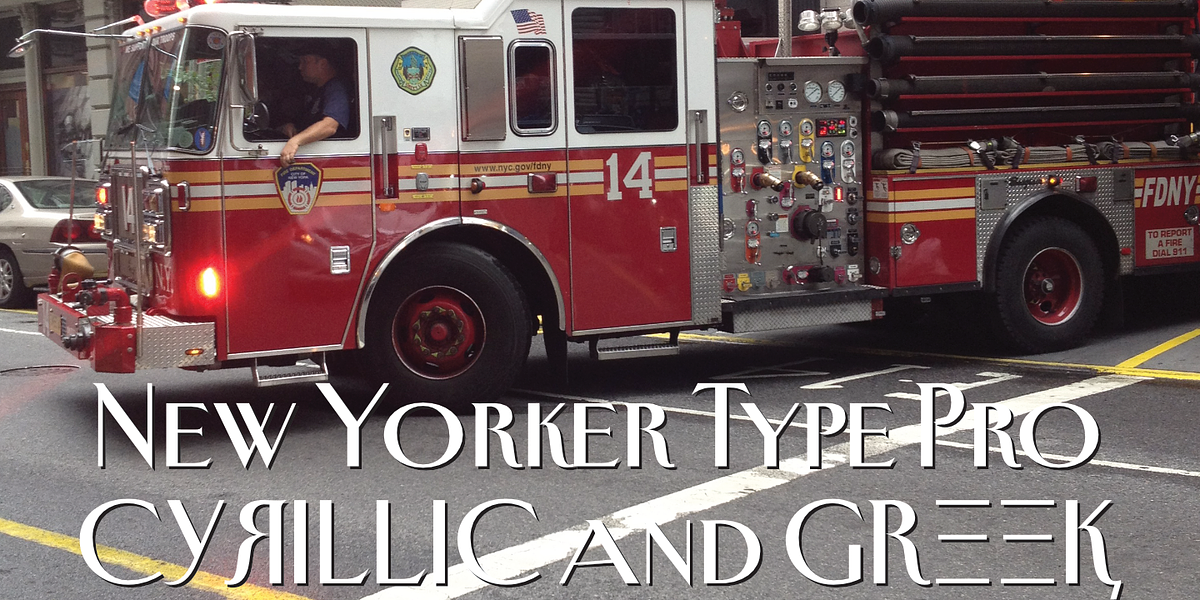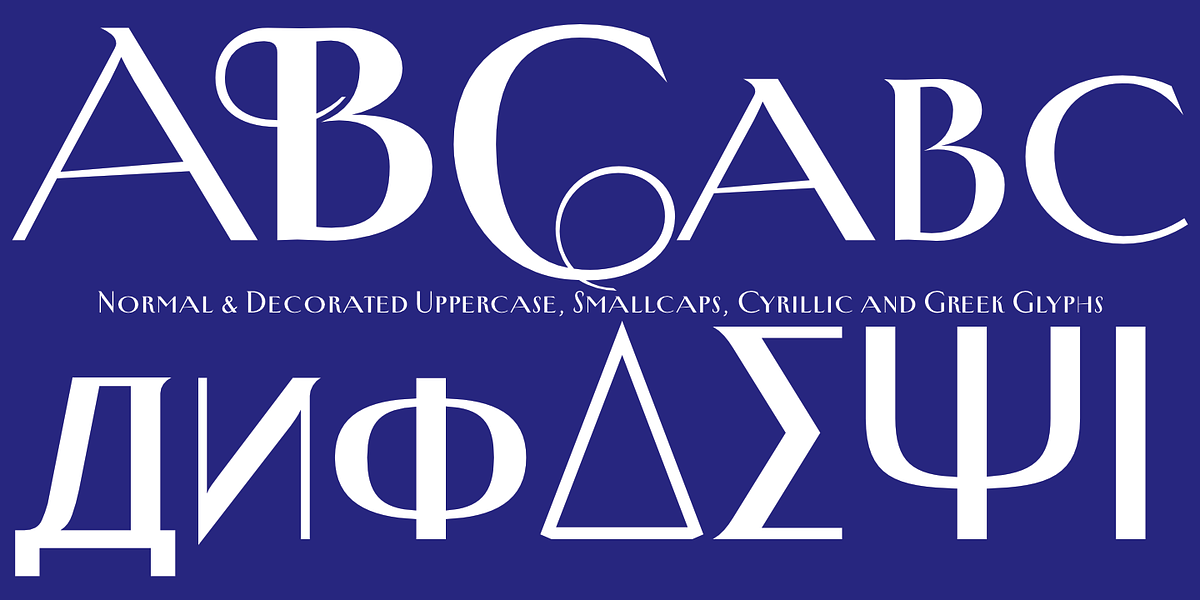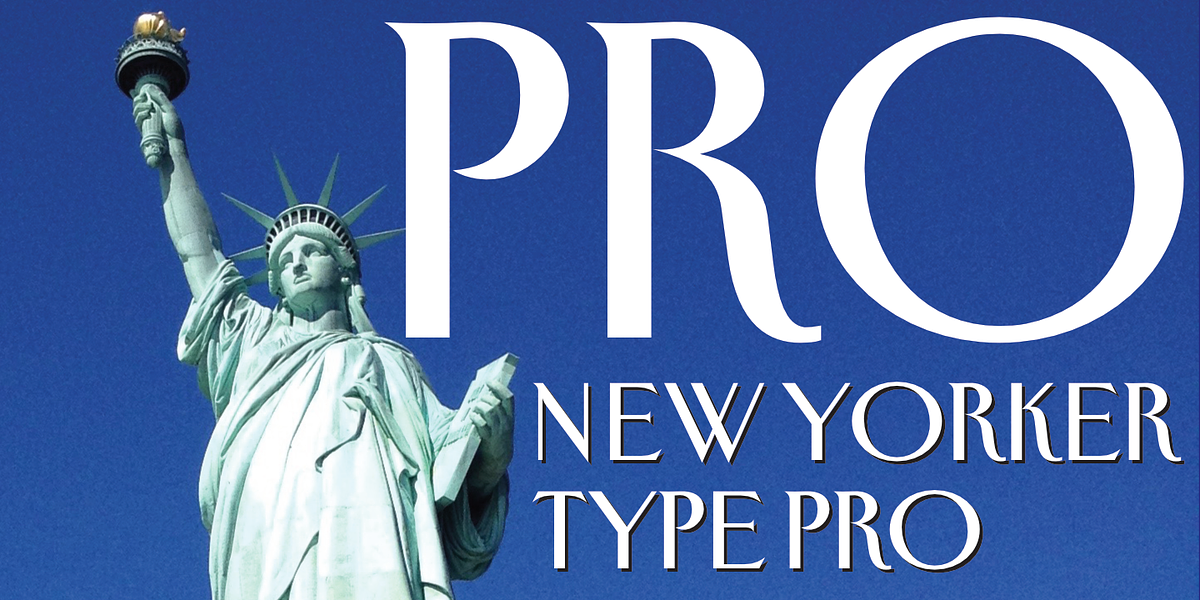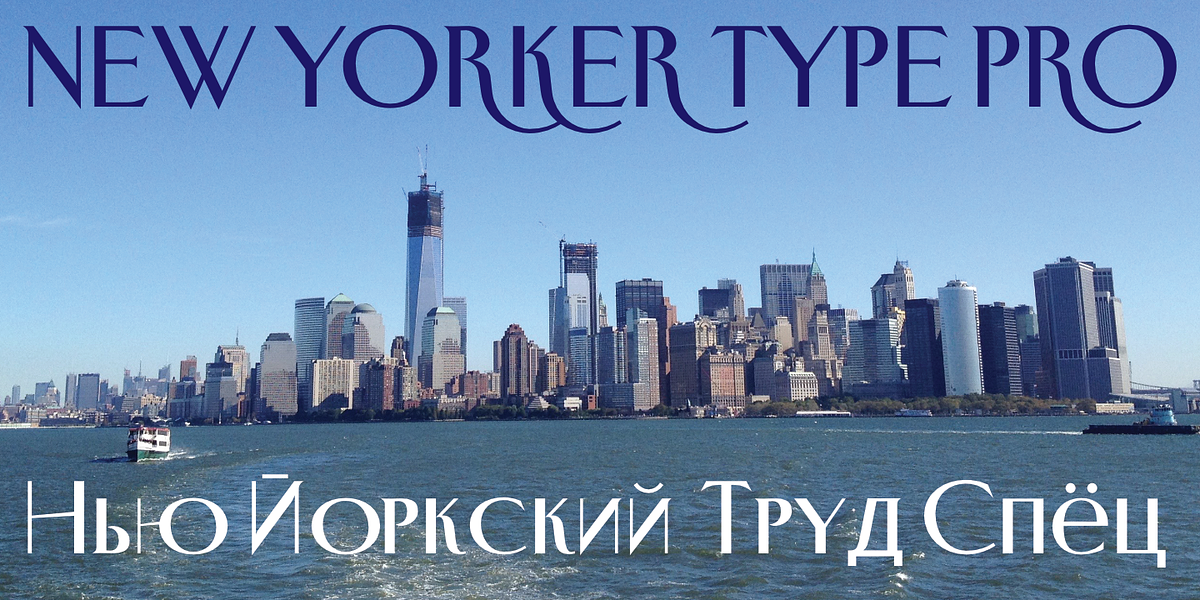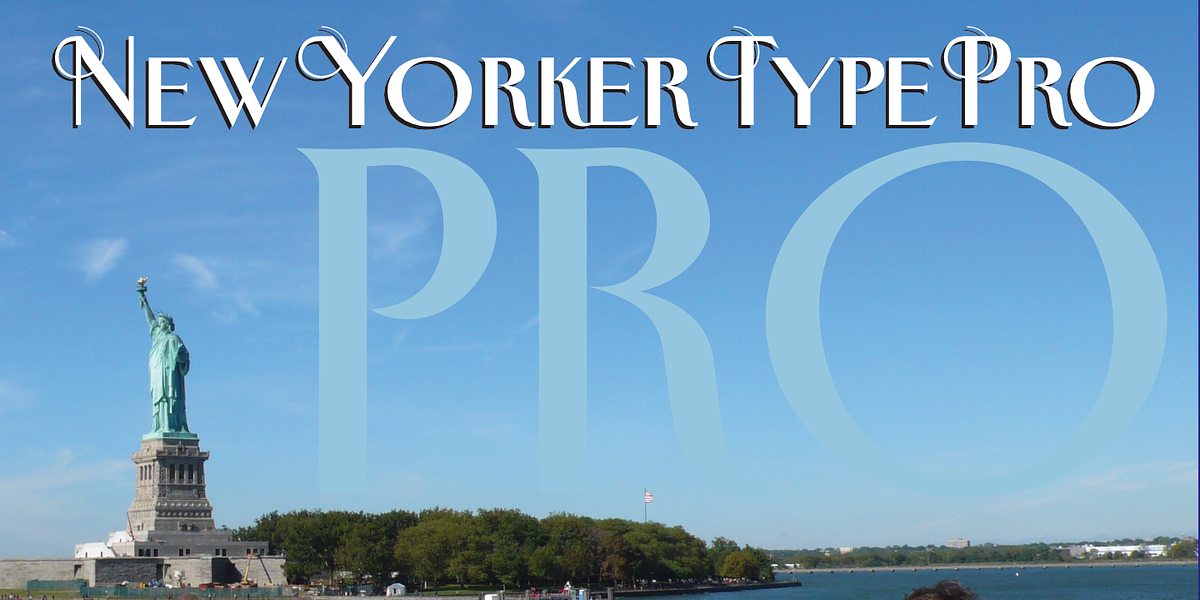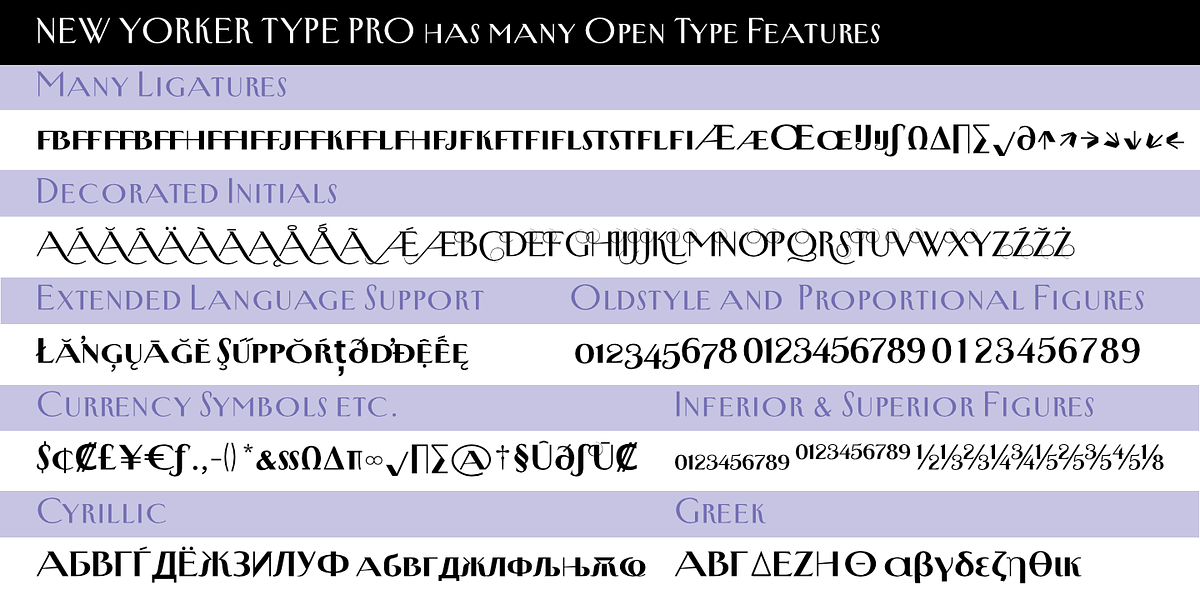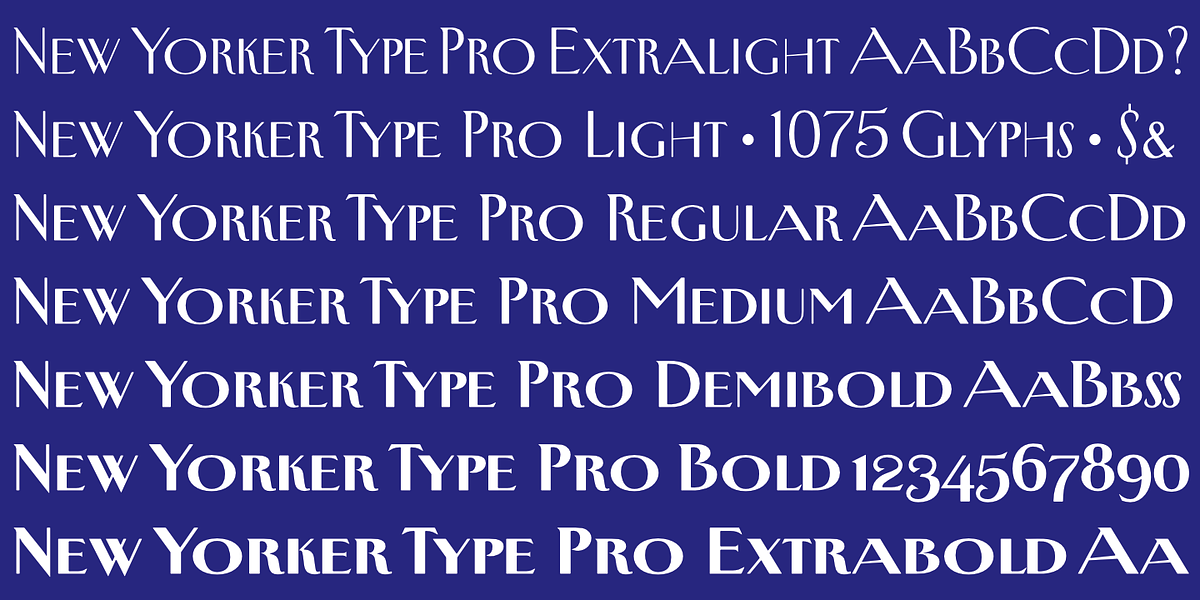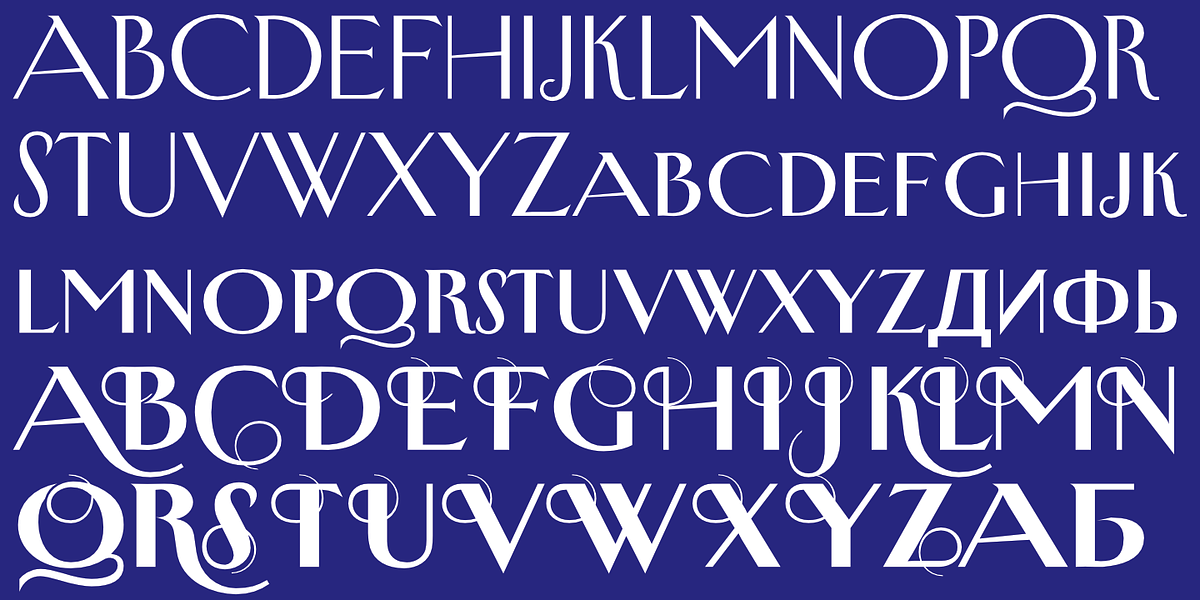
New Yorker Type Pro
New-Yorker-Type is a display serif font inspired by the typeface used in the New Yorker magazine. Designed by Gert Wiescher as a homage to Rea Irvin's original design, it features a classic art deco aesthetic with high contrast and elegant serifs. The font comes in two versions: Classic with rounded corners for a vintage feel and Pro with pointed serifs for a more modern look. It includes swash initials, Cyrillic and Greek support, expanding its usability to various Latin writing systems.